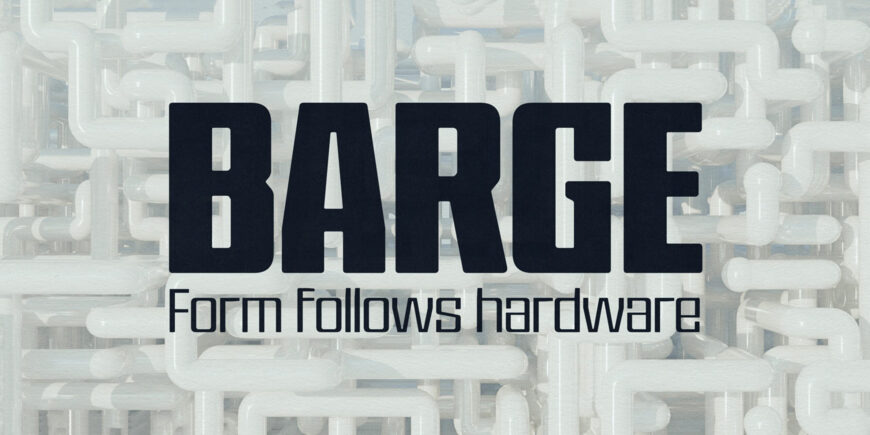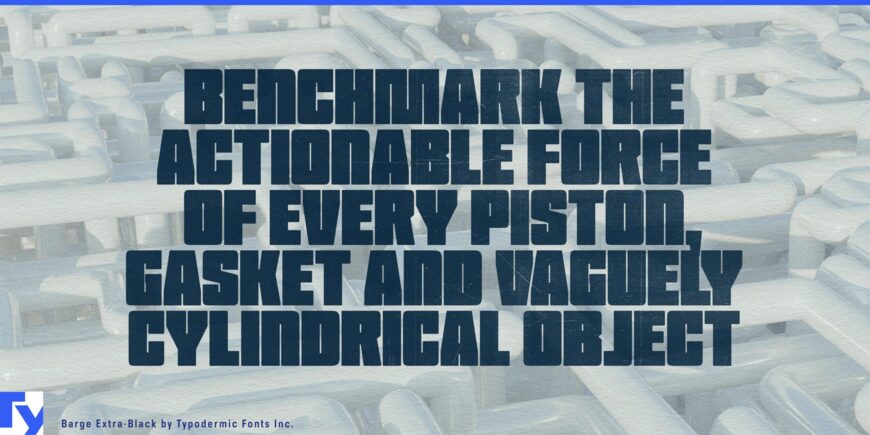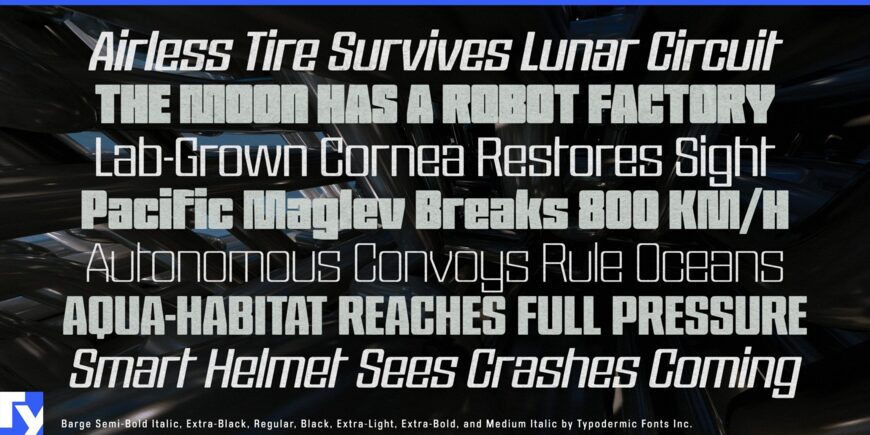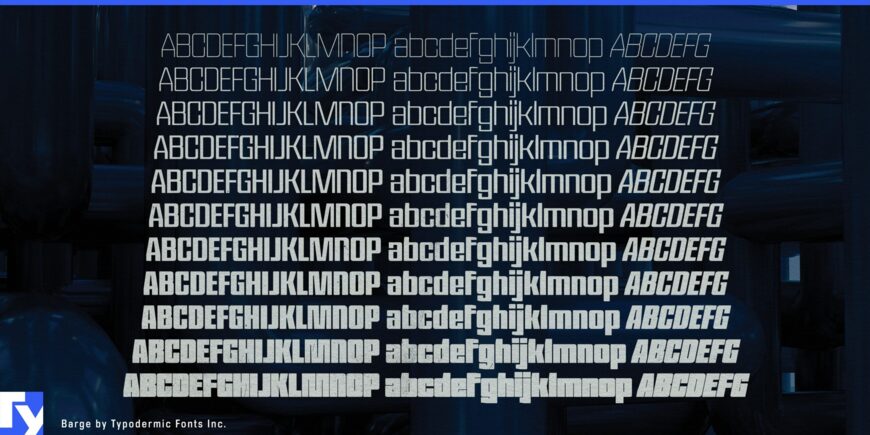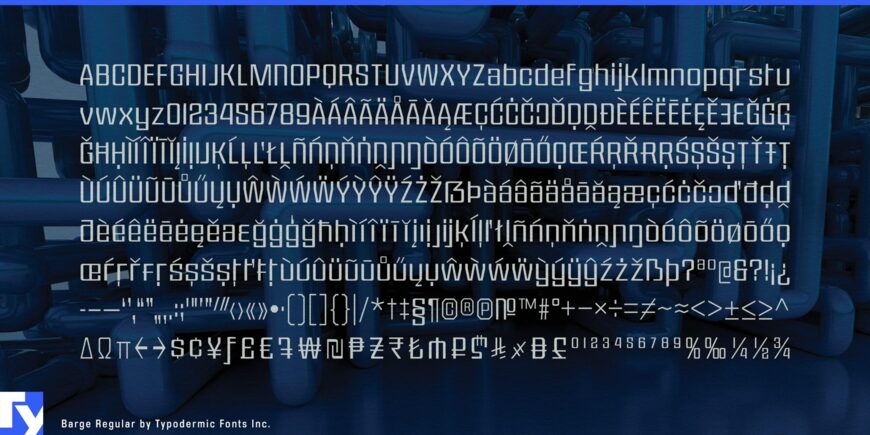
Barge is a compact industrial display typeface designed to look at home on the machines and products it identifies. Its narrow, sturdy forms combine softened chamfers with squared details, giving headlines and model names the presence of lettering built into an equipment housing rather than added afterward. Use Barge Black and Black Italic for machinery branding, control panels, power tools, sports equipment, motorsports graphics, pharmaceutical and supplement packaging, or science-fiction hardware.